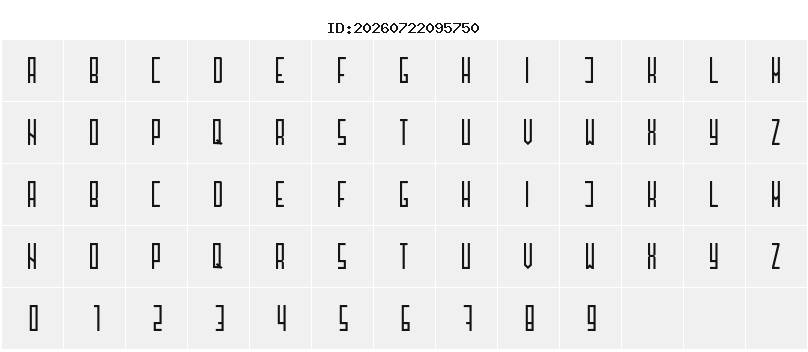
Henzy30 Preview
• Font Name: Henzy30
• Designer: Henrik Lindblad
About Henzy30.otf
Henzy30.otf is a modern, elegant sans-serif font designed for ultimate readability and visual harmony. Perfect for branding, headlines, web design, and print materials.